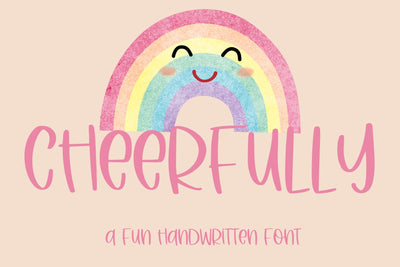
Cheerfully, Handwritten Font for Cricut, Cricut Fonts SVG, Fun Handwriting Cricut Fonts
Introducing Cheerfully, adorable Handwritten Font for Cricut - a charming and cute addition to your creative projects! With its playful and fun handwriting style, it adds a touch of whimsy and personality to any project. Whether you're crafting cards, scrapbooking, or designing SVG files, this font will bring your creations to life.